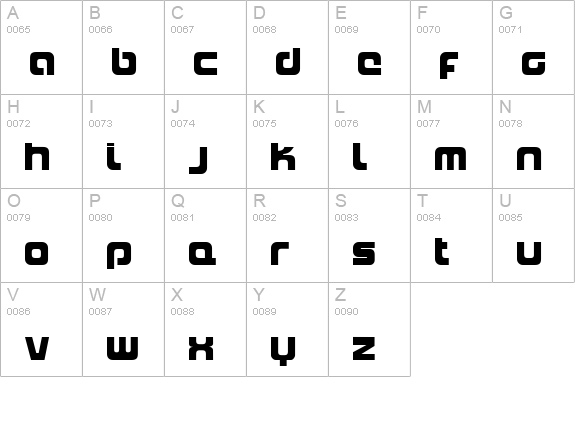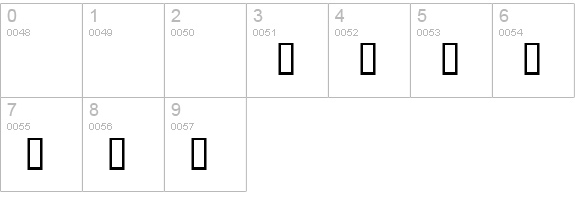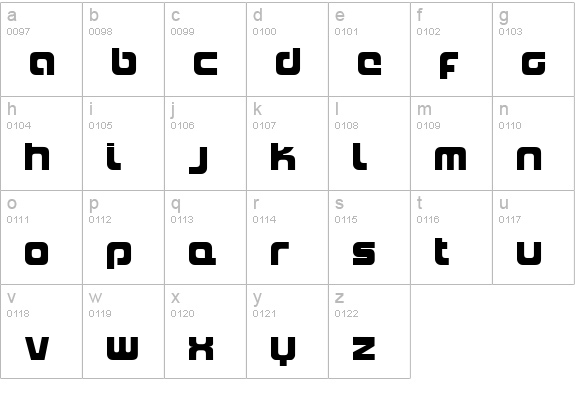
Naxalite Font Details
Naxalite font is a stunning display typeface that exudes a rebellious and bold aesthetic, perfect for making a strong statement in your designs. Its sharp edges and unique letterforms make it stand out from the crowd, adding a touch of edginess to any project. Naxalite font is versatile and can be used for a variety of design applications, from posters to branding to social media graphics. What sets Naxalite font apart is that it is not only visually striking, but also completely free to download. You can easily access this eye-catching font at FontsMarket.com, where it is available for instant download. Whether you're a seasoned designer looking to add a fresh element to your work or a newcomer searching for the perfect font to make your projects pop, Naxalite font is the ideal choice. Download it now and let your creativity soar with this exciting and dynamic typeface.